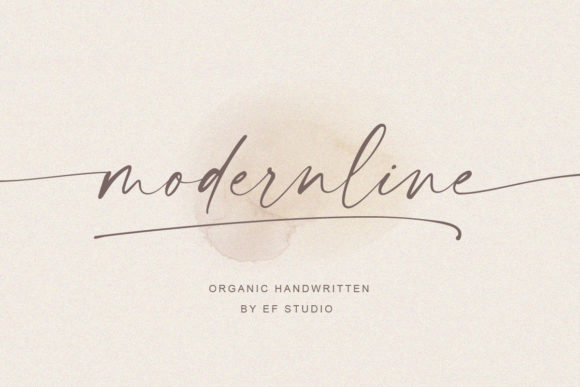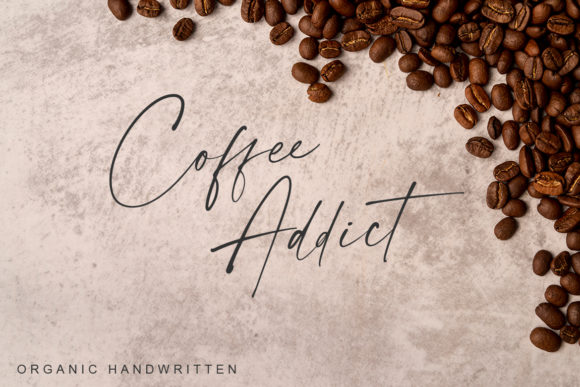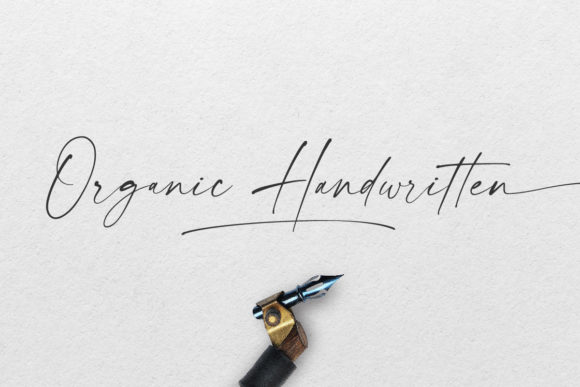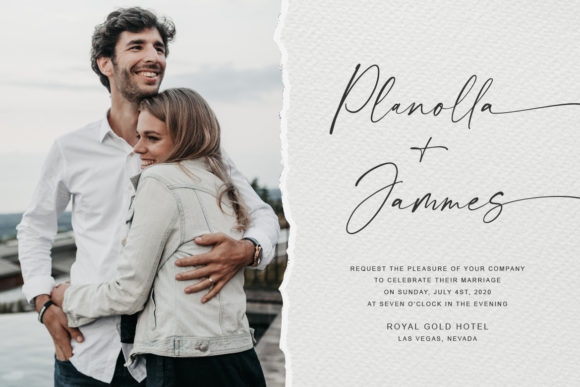
The Modernline Font offers a perfect balance of form and function for your design needs. Modernline is the simplest definition of elegance. This handwritten font has a charming style, and will look outstanding in any context, whether it’s being used on busy backgrounds or as a standalone headline. Modernline is PUA encoded which means you can access all of the glyphs and swashes with ease! It features a varying baseline, smooth lines, gorgeous glyphs and stunning alternates.
Modernline’s elegant, yet slightly informal feel makes it ideal for branding projects requiring a touch of sophistication, particularly logos, short taglines, and invitations. It also excels in headlines for posters and social media graphics where its charm can shine. However, its varying baseline and handwritten style make it less suitable for body text or UI elements where readability is paramount. Avoid using it for large blocks of text.
For optimal pairings, consider pairing Modernline with a clean sans-serif like Lato for a contemporary contrast, or a classic serif such as Garamond for a more traditional feel. A geometric sans-serif could also work well, adding a modern edge to its handwritten charm.
Modernline’s overall personality is sophisticated yet approachable; it projects a sense of refined casualness, making it versatile for brands aiming for a balance between elegance and approachability.